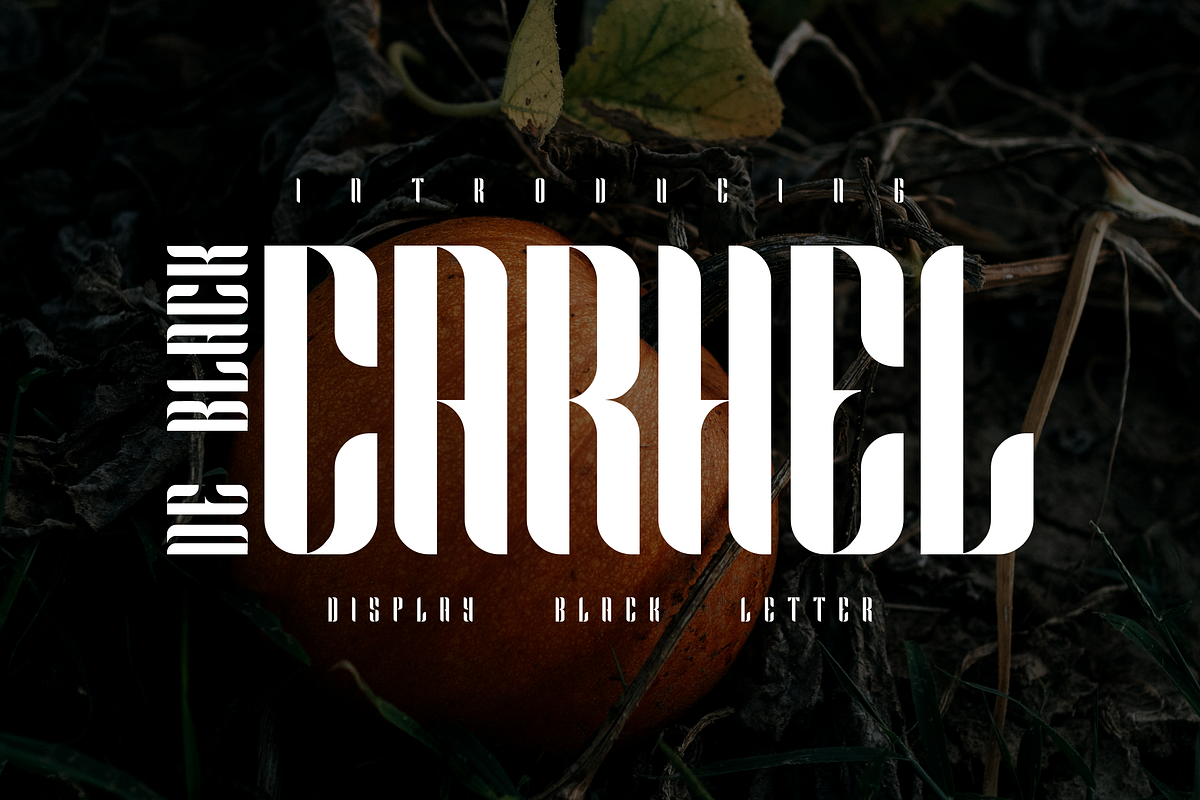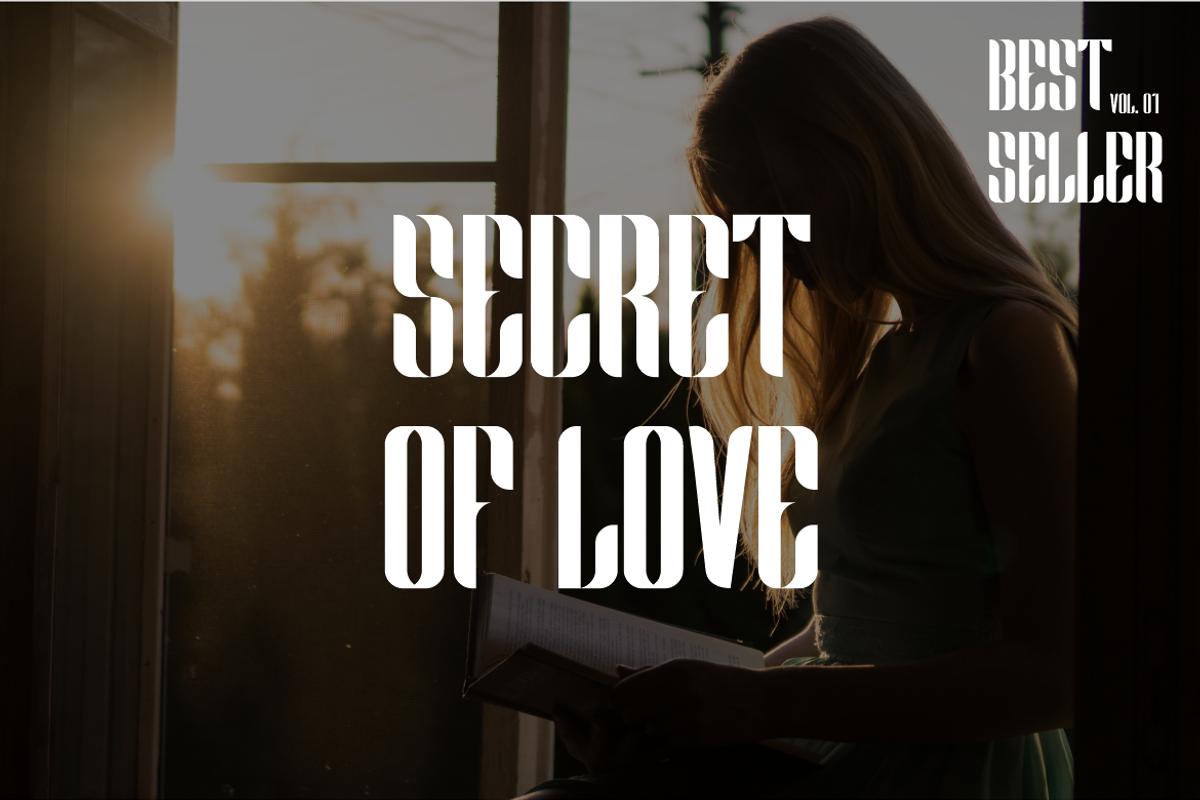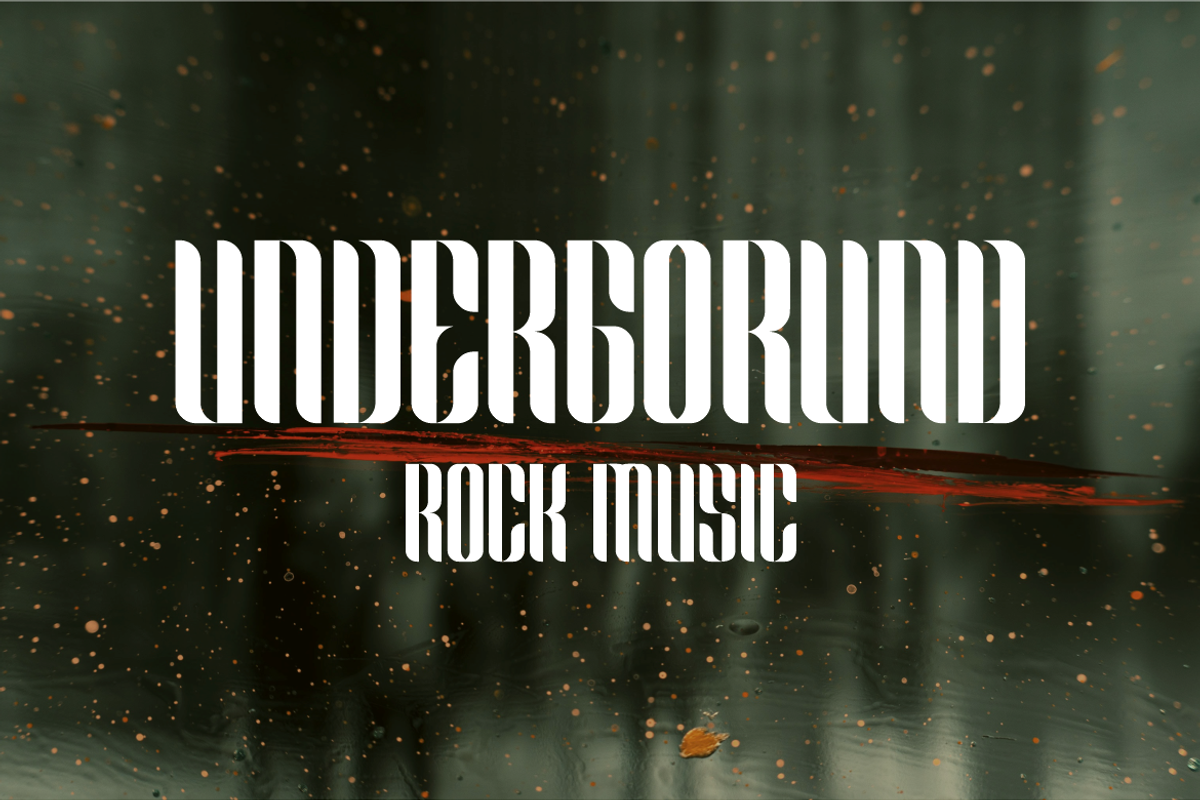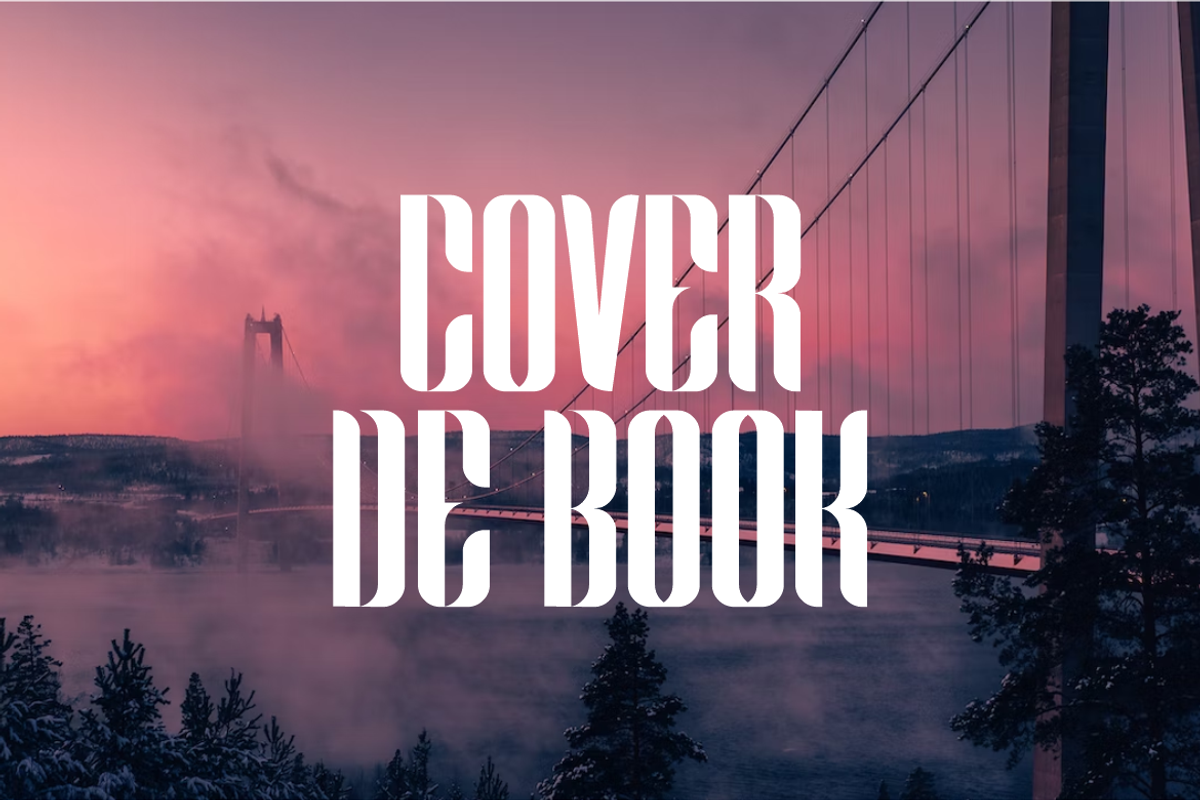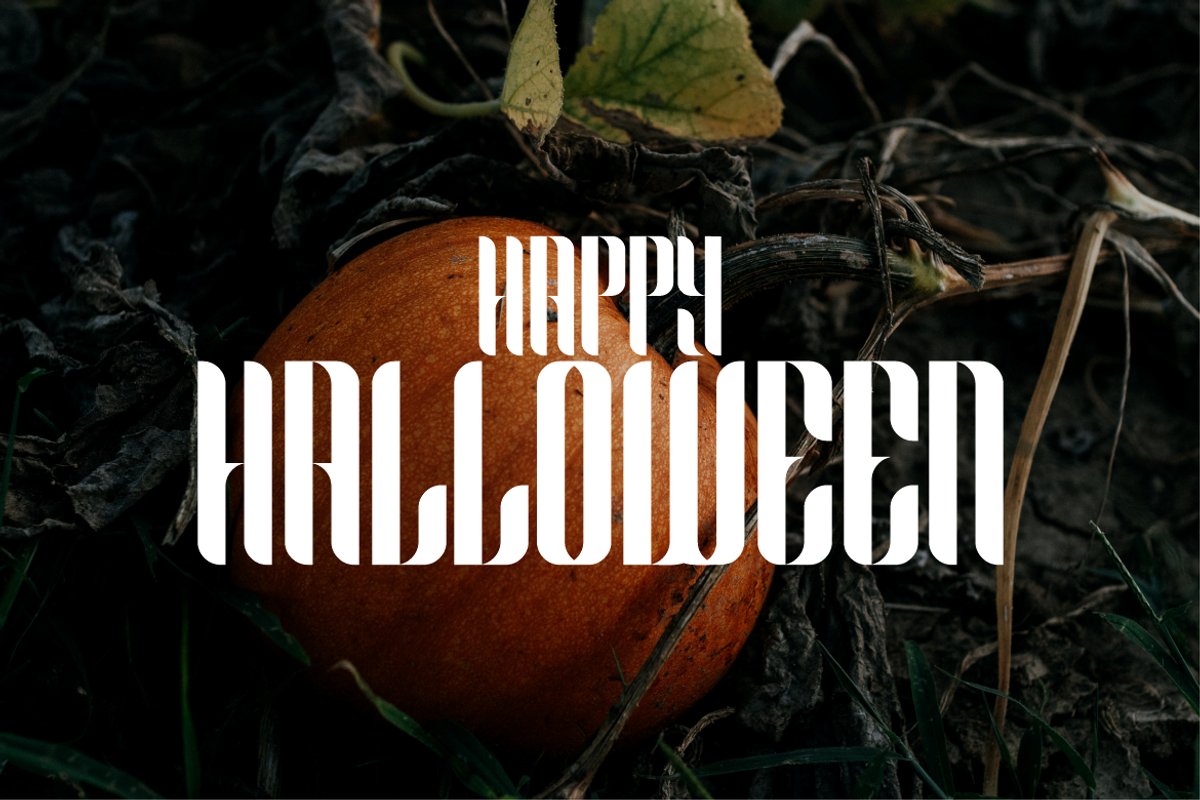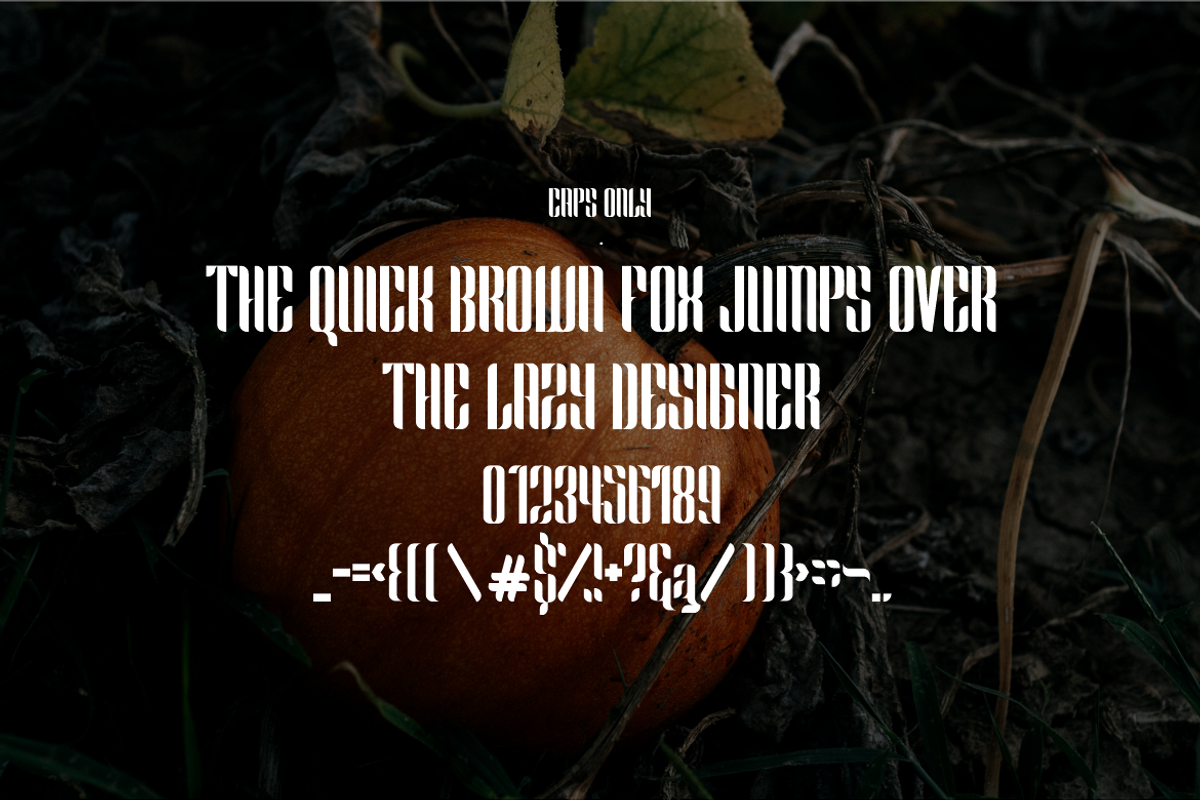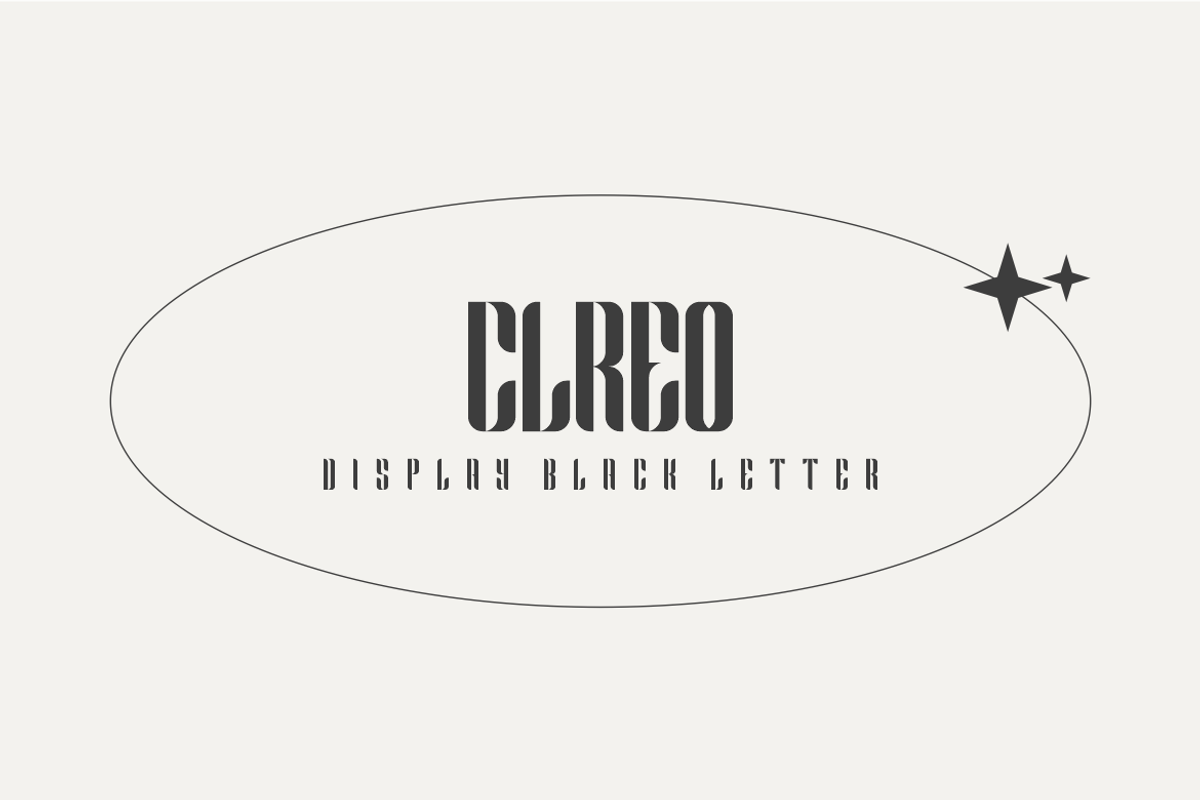
Carhel De Black Font
Carhel De Black Font It has a elegant, classy look and modern. It’s a great font for fashion, apparel projects, signature, album cover,logo, branding, magazine, social media, & advertisements, but also works great for other projects.